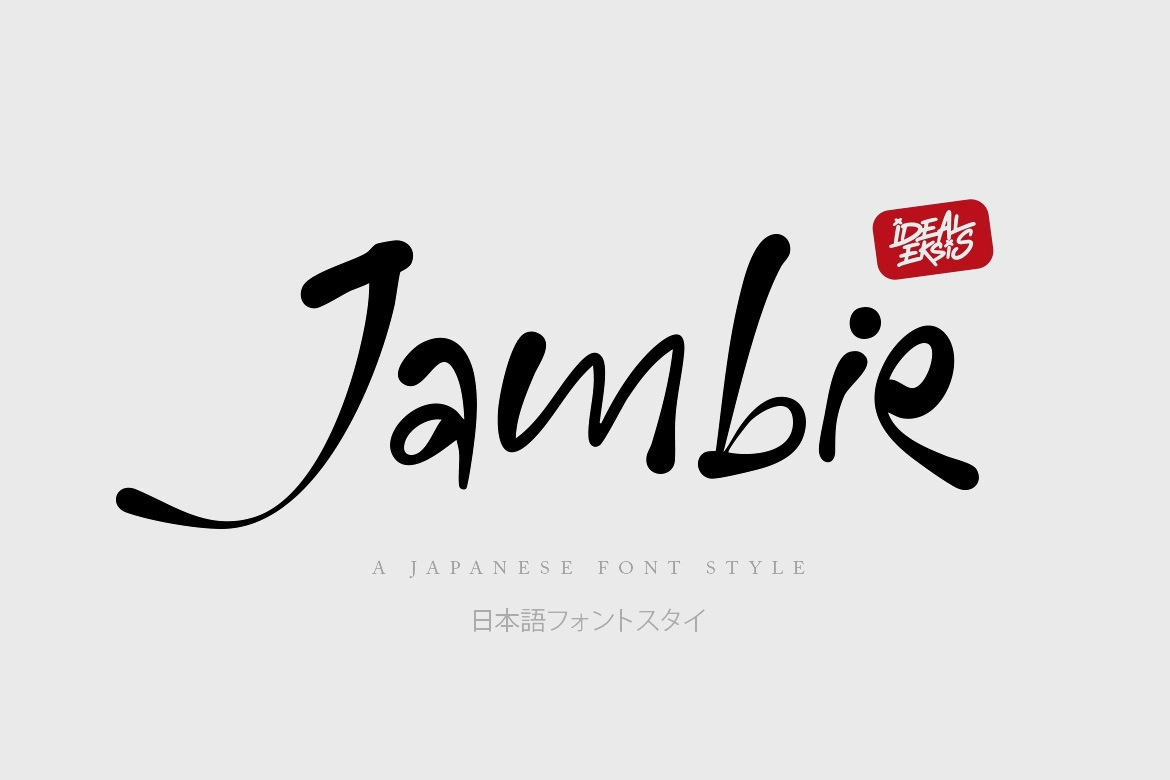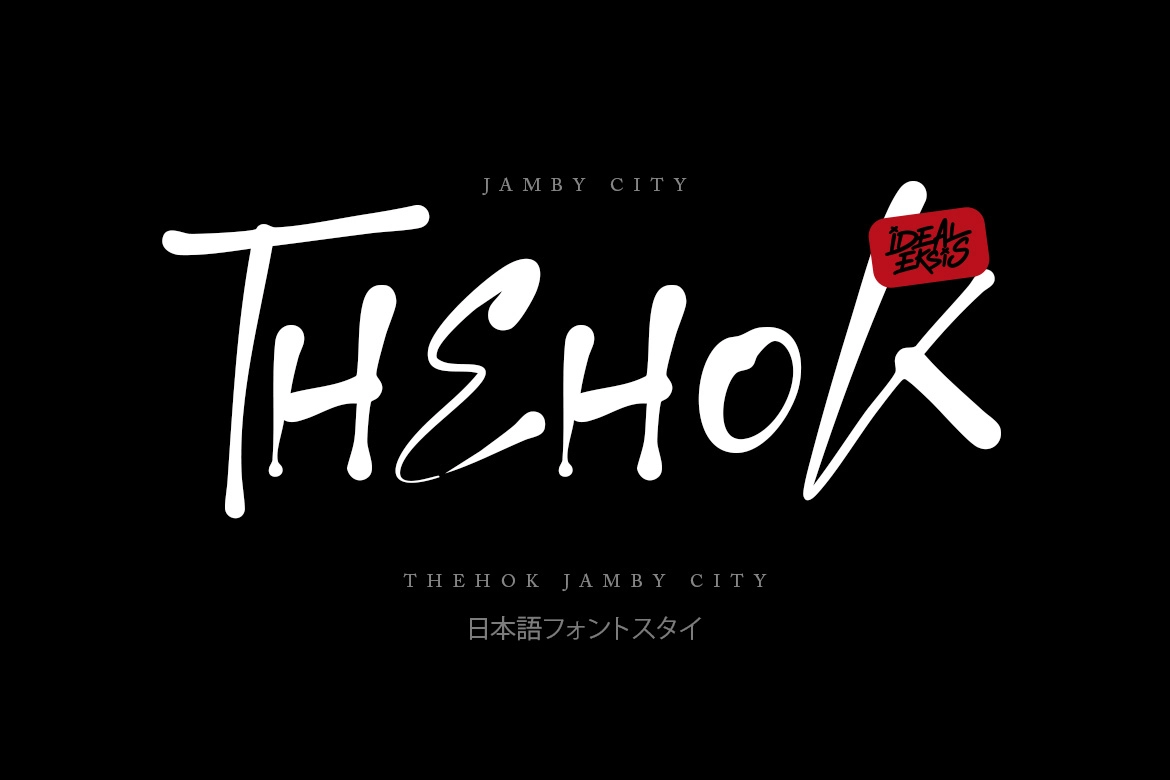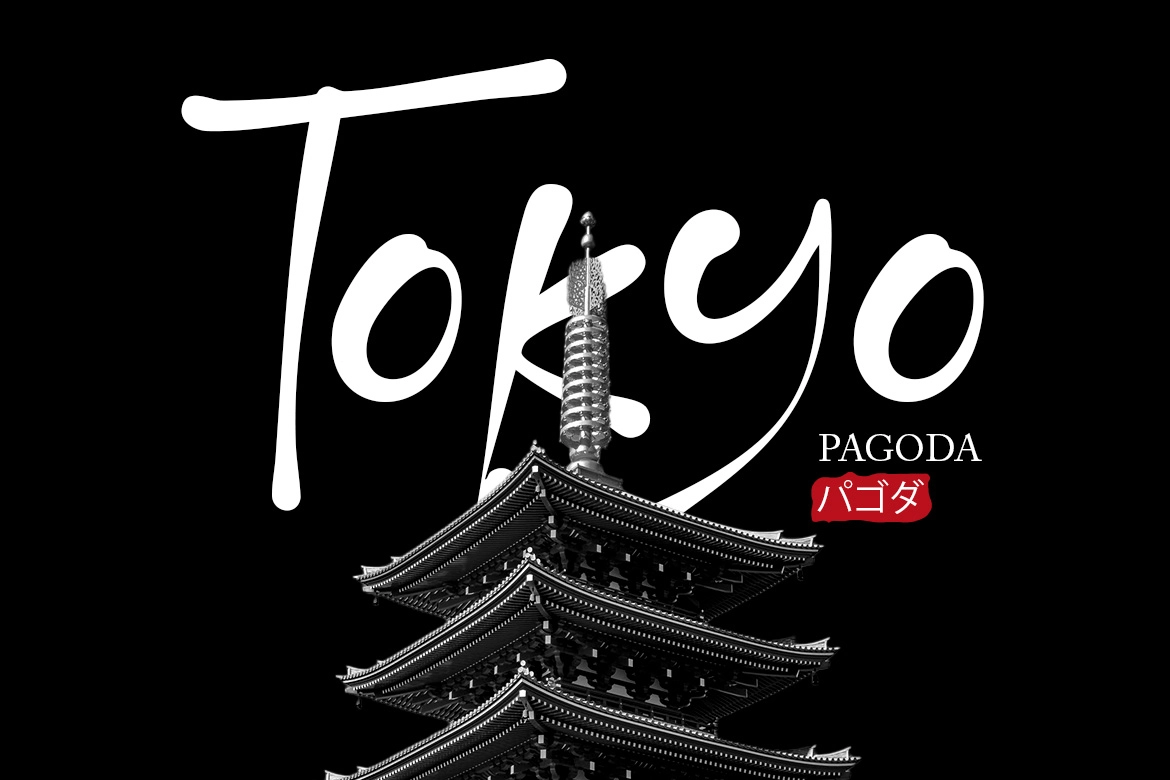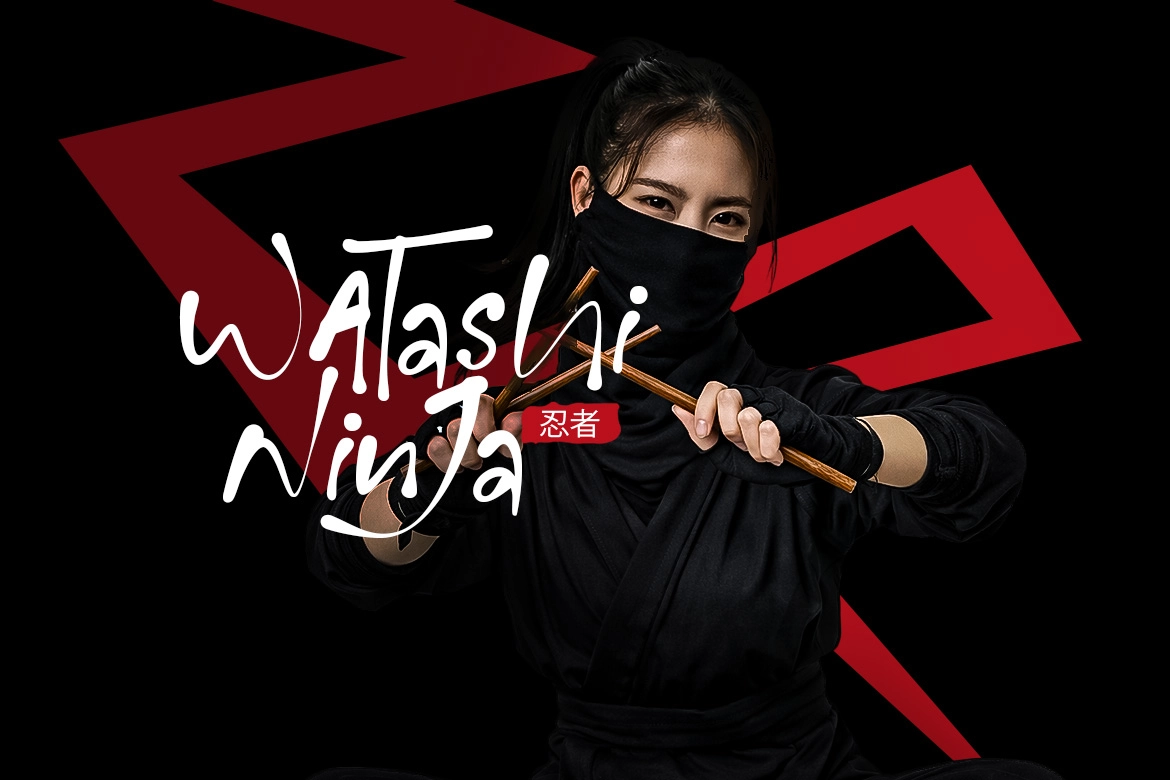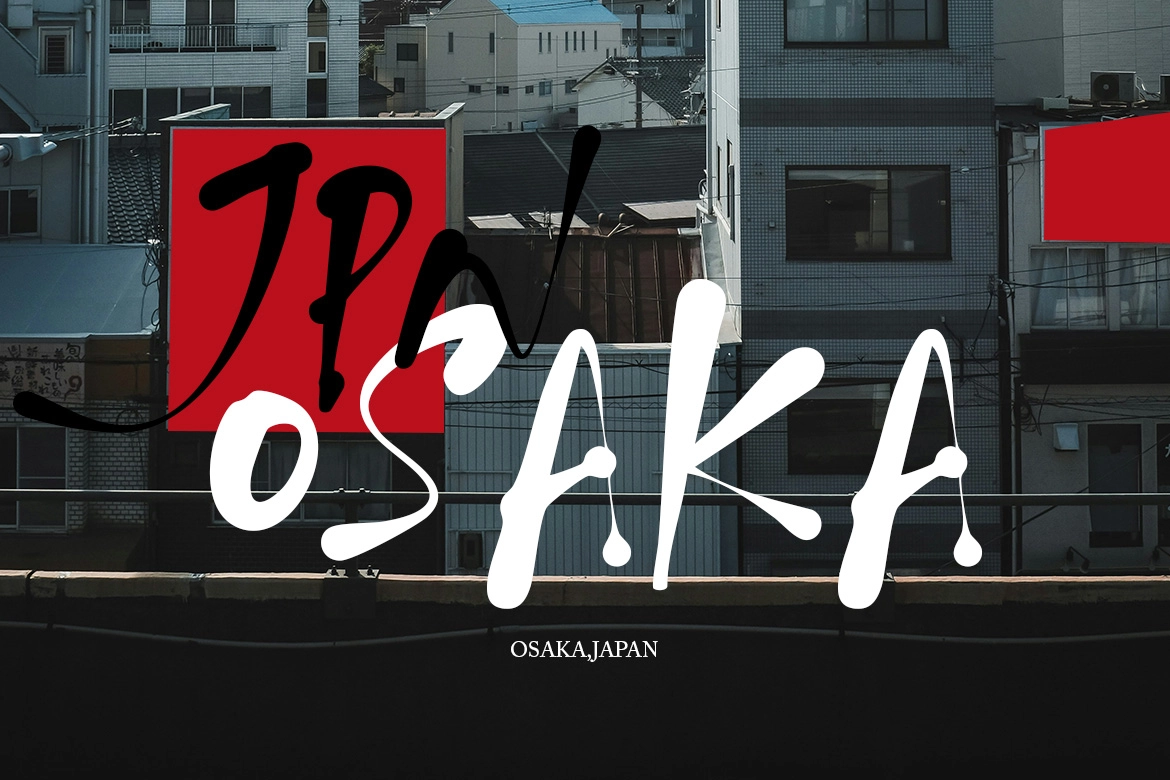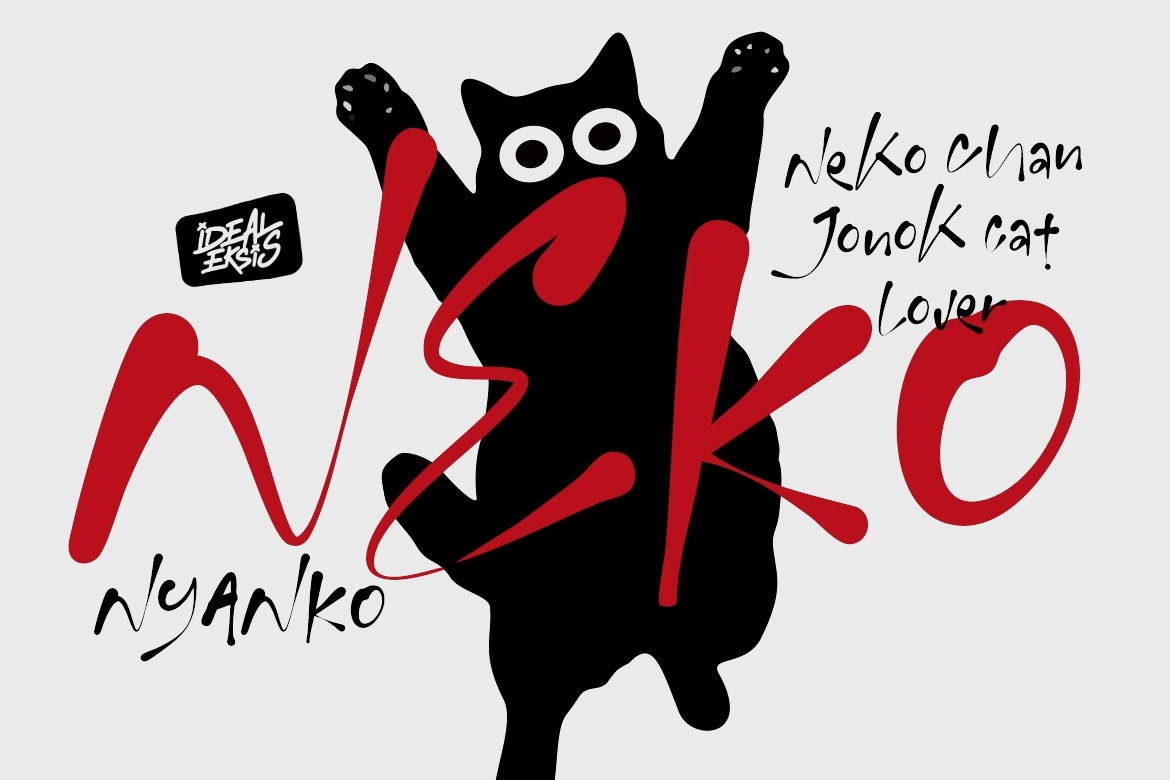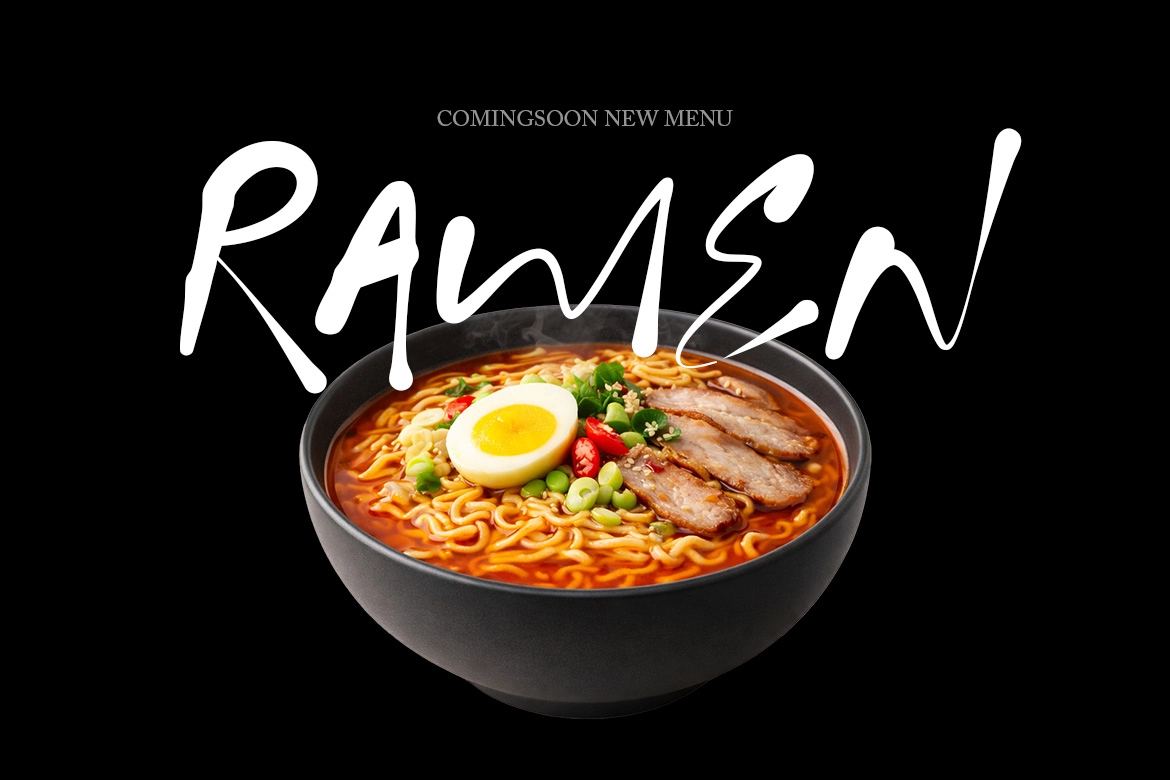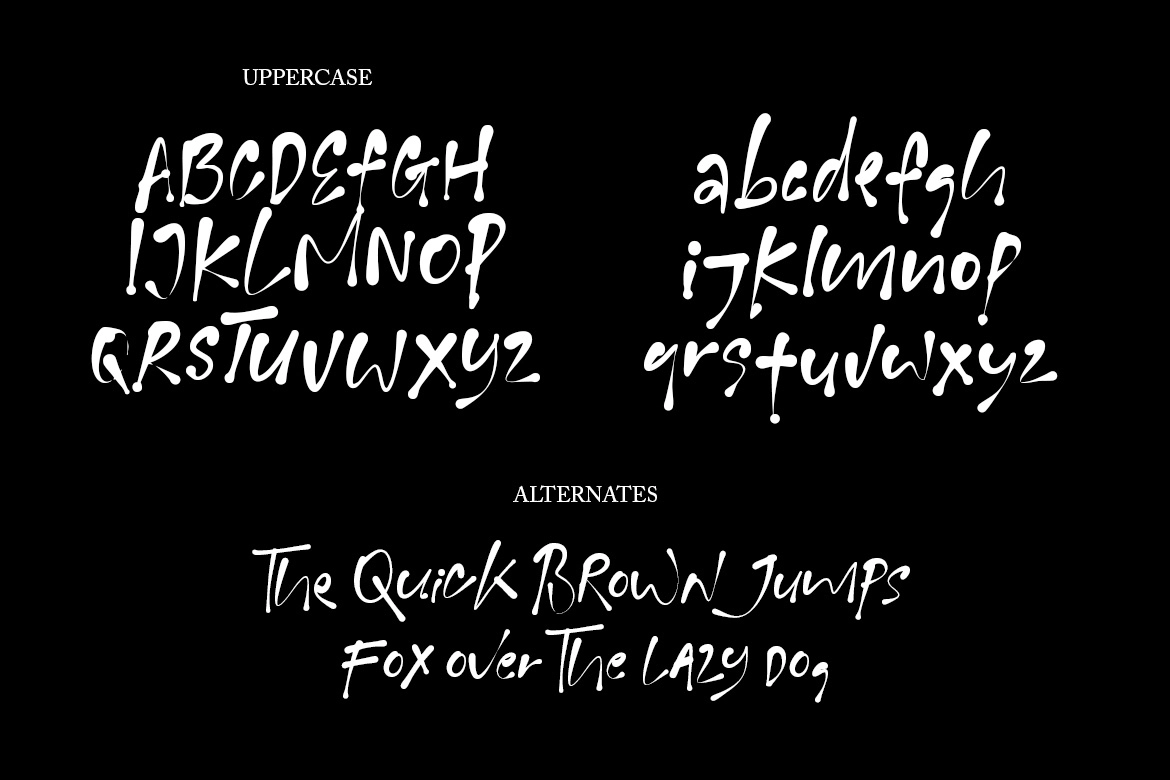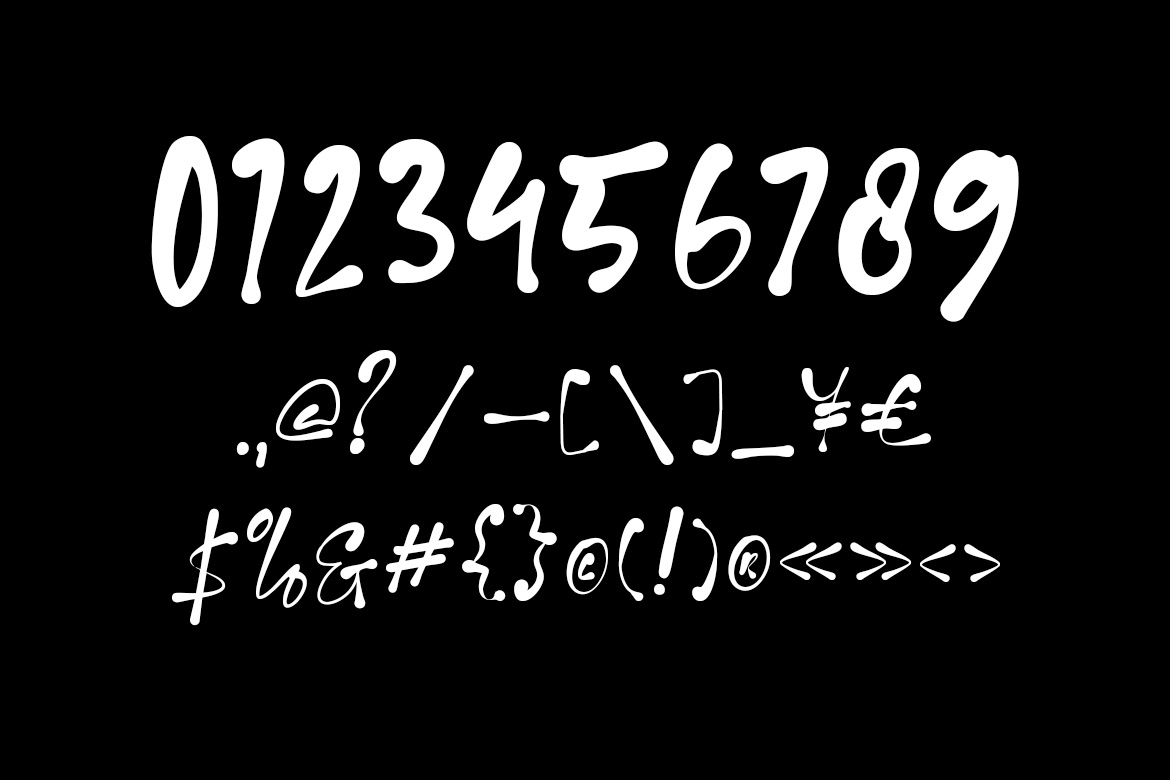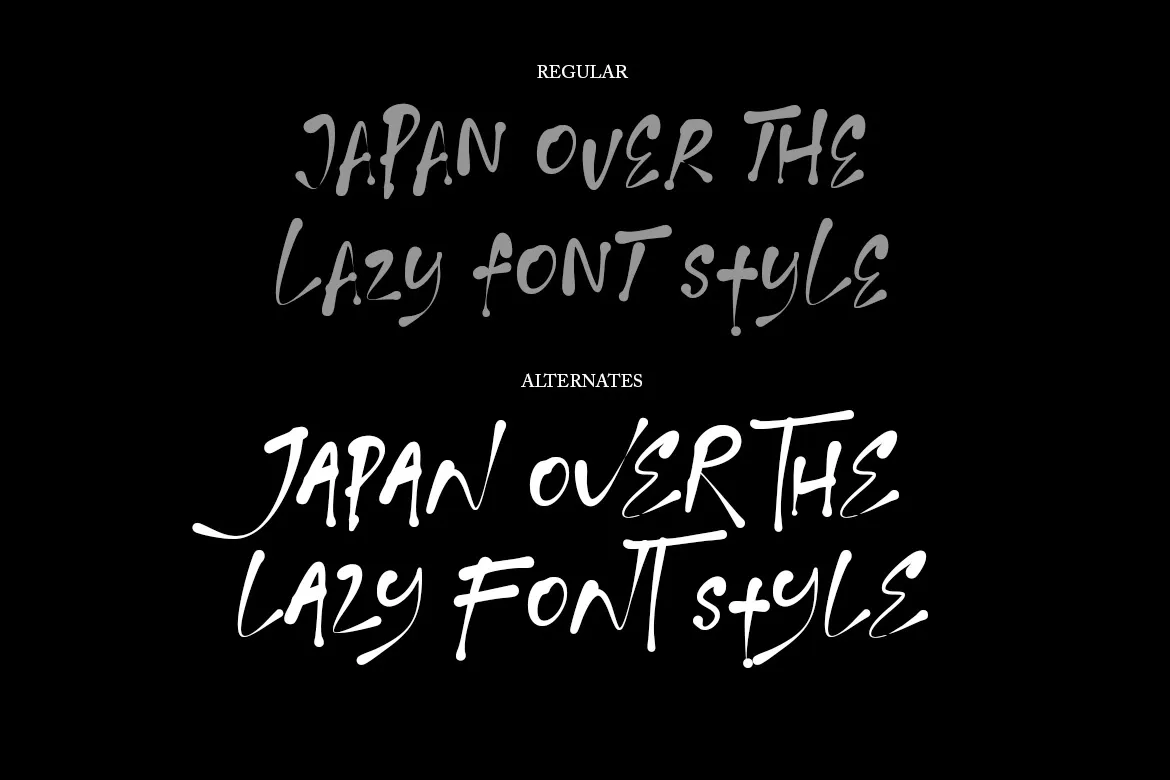
Jambie - Japanese Brush Font
Jambie
Jambie - Japanese Brush Font is a dynamic handwritten typeface inspired by Japanese brush aesthetics, featuring fluid strokes and organic letterforms. Its expressive rhythm and natural flow create an authentic handcrafted feel that brings warmth and personality to any design.
Perfect for branding, posters, packaging, social media, and creative projects, Jambie blends elegance with spontaneity, delivering a bold yet artistic visual style that feels both modern and culturally expressive.
- Uppercase & lowercase characters
- Alternates